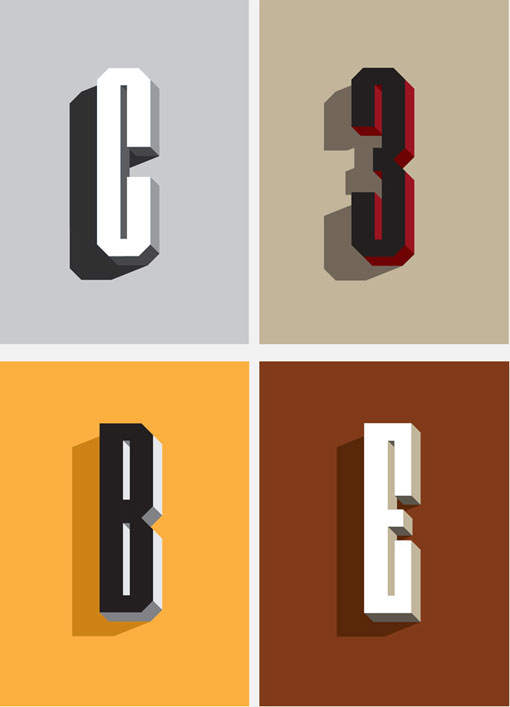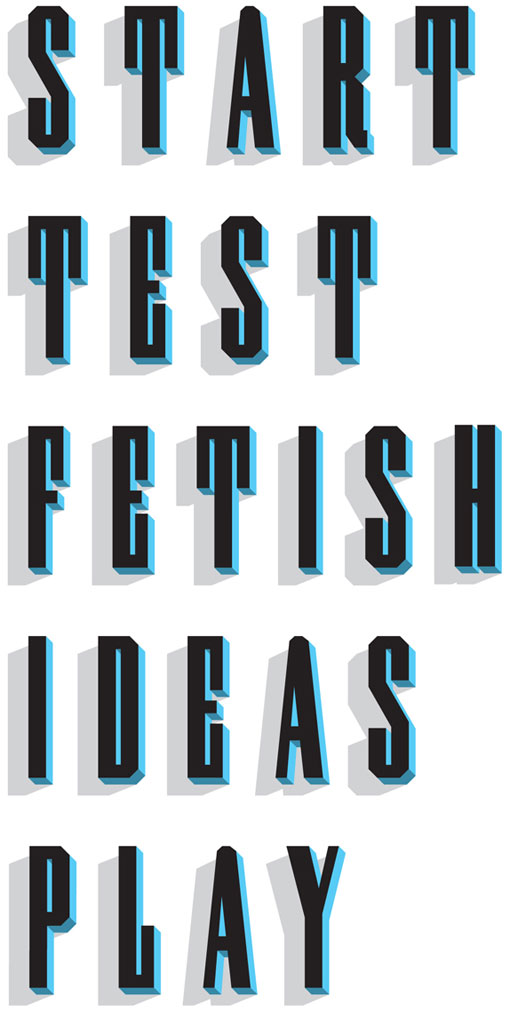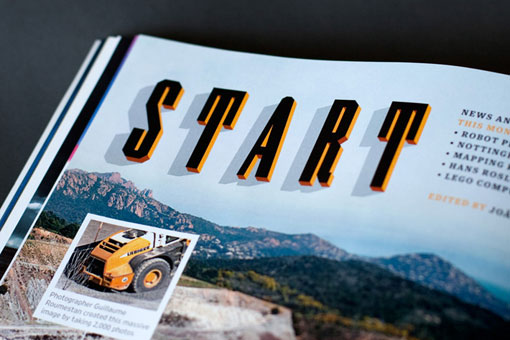
This flexible, three-dimensional typeface was created by Studio8 for Wired. Fingers crossed that some day down the line they offer it up for public consumption. Gorgeous.